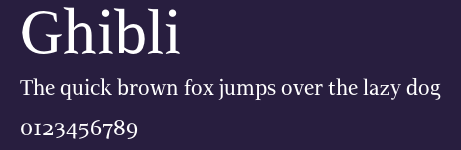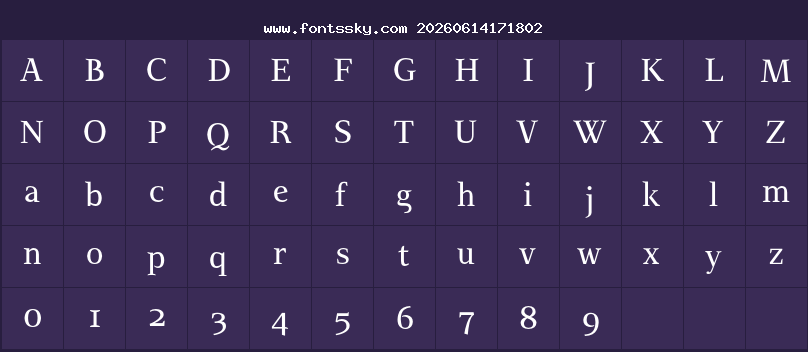
• Font Name: Ghibli
• Designer: Eyad Al-Samman
• Description: The word ‘Ghibli’ per se refers to a Saharan hot and dry wind commonly known as the Sirocco. In Arabic language, ‘Ghibli’ is known as ‘Qibli or Kibli’, meaning ‘Southern’ for those Arabic nations who live in the North of Africa. The ‘Ghibli’ wind is most common during spring and autumn, and can blow at almost 60mph; it is this wind which is responsible for the dry, dusty conditions on the Mediterranean coast of North Africa. ‘Ghibli’ can last for days making life miserable and is therefore feared by the desert dwellers in that region. It can also have profound effect on the landscape by moving vast quantities of sand and dunes. Inspired by the Studio Ghibli’s unique and magical characters, the ‘Ghibli’ typeface is designed as a Latin free and literary serif typeface. It strongly expresses transition, imagination, sharpness, characterization, and modernization. It is a literary type that can capture the eyesight of readers and other observers with its acute and stylistic letterforms, dots, and numerals. It has transitional serifs and it is generally based upon the Latin printing style of the 18th and 19th centuries, with a pronounced vertical contrast in stroke emphasis (i.e., vertical strokes being heavier than the horizontal strokes). It has more regular forms in which serifs are bracketed and more symmetrical. The main characteristic of ‘Ghibli’ typeface is in its new designed serif letters. Special letters that can be described as having modern designs include small ‘g’, ‘p’ (with their open ends), ‘x’, and capital ‘B’, ‘P’, ‘Q’, and ‘R’ (with their open ends). ‘Ghibli’ typeface has also both of lining and old-style numerals which makes it more suitable for any literary and printing purposes. This gratuitous font comes in only two weights (i.e., Ghibli Regular and Ghibli Bold). It is absolutely preferable to be used in the wide fields related to literature and publication industry. This includes typing titles of diverse literary and academic books, readable texts of novels, novellas, short stories, prose, poetry, textbooks, newspapers, and magazines. It is also notable if chosen for designs that include movies’ titles, logos of academic institutions such as colleges and universities, organizations and associations’ names, medical packages such as those dedicated for tablets and syrups, and also other different educational and social materials. ‘Ghibli’ is simply a free literary typeface dedicated for all who want to write and read using a modern and stylish serif font. Enjoy it.
About Ghibli.otf
Ghibli.otf is a modern, elegant sans-serif font designed for ultimate readability and visual harmony. Perfect for branding, headlines, web design, and print materials.